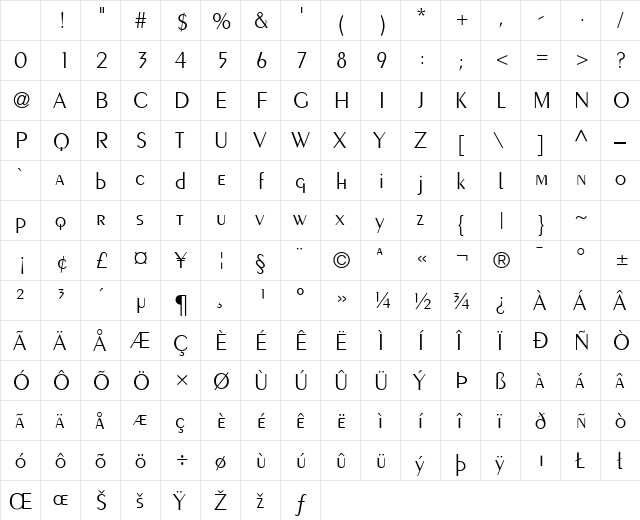
Complete Creme SSi Light glyph index. Displaying only characters natively supported by Creme SSi Light font.
Creme SSi is a composed and adaptable typeface that performs quietly and consistently across a wide range of design contexts. Its slender proportions lend an understated elegance to any composition.